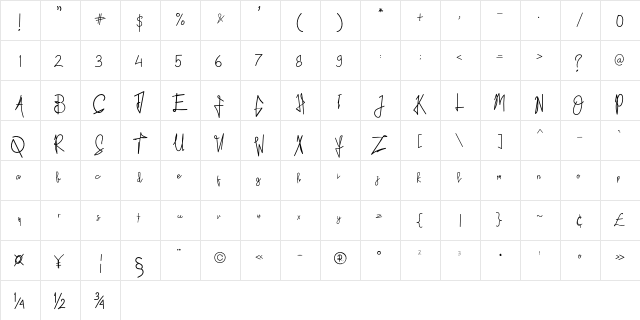
Kid Rough Regular
Design Context for Kid Rough Typeface
Kid Rough embraces imperfection — its rough, textured character adds raw authenticity to designs that want to feel lived-in and unconventional.
Suited to punk-influenced zines, underground music branding, streetwear, and raw, anti-corporate design.